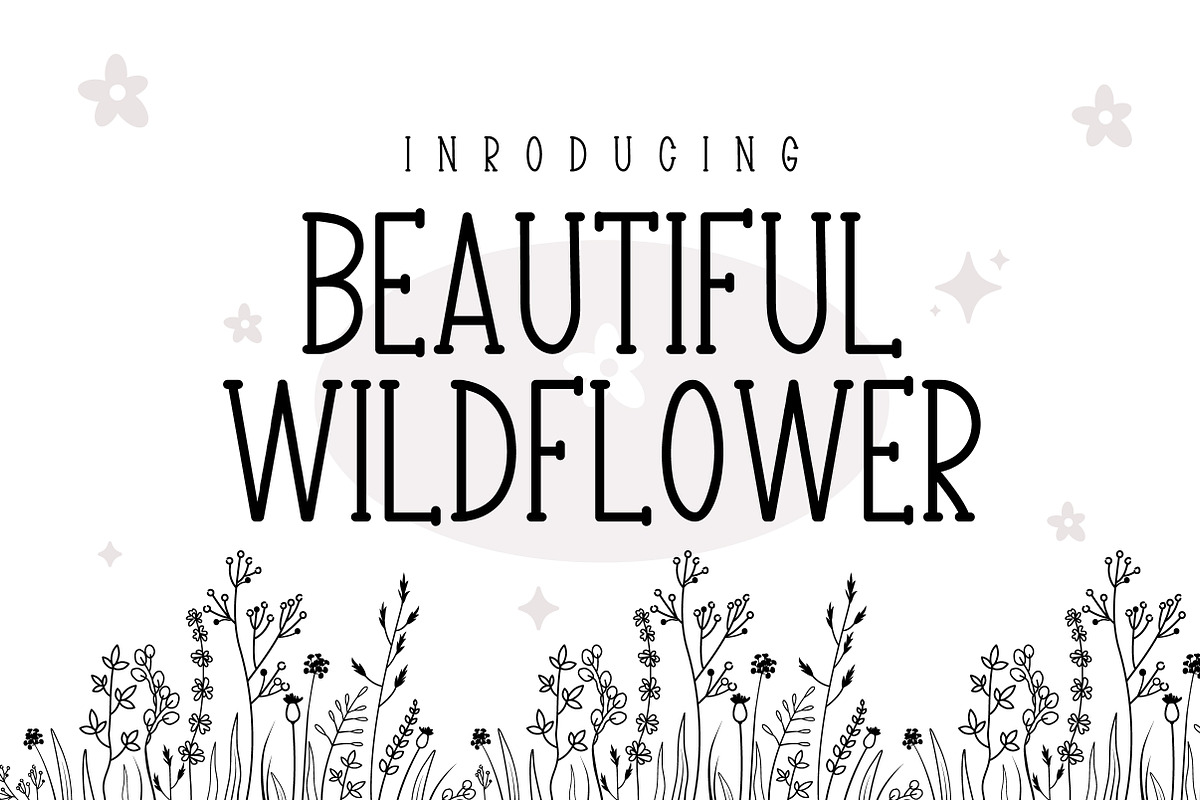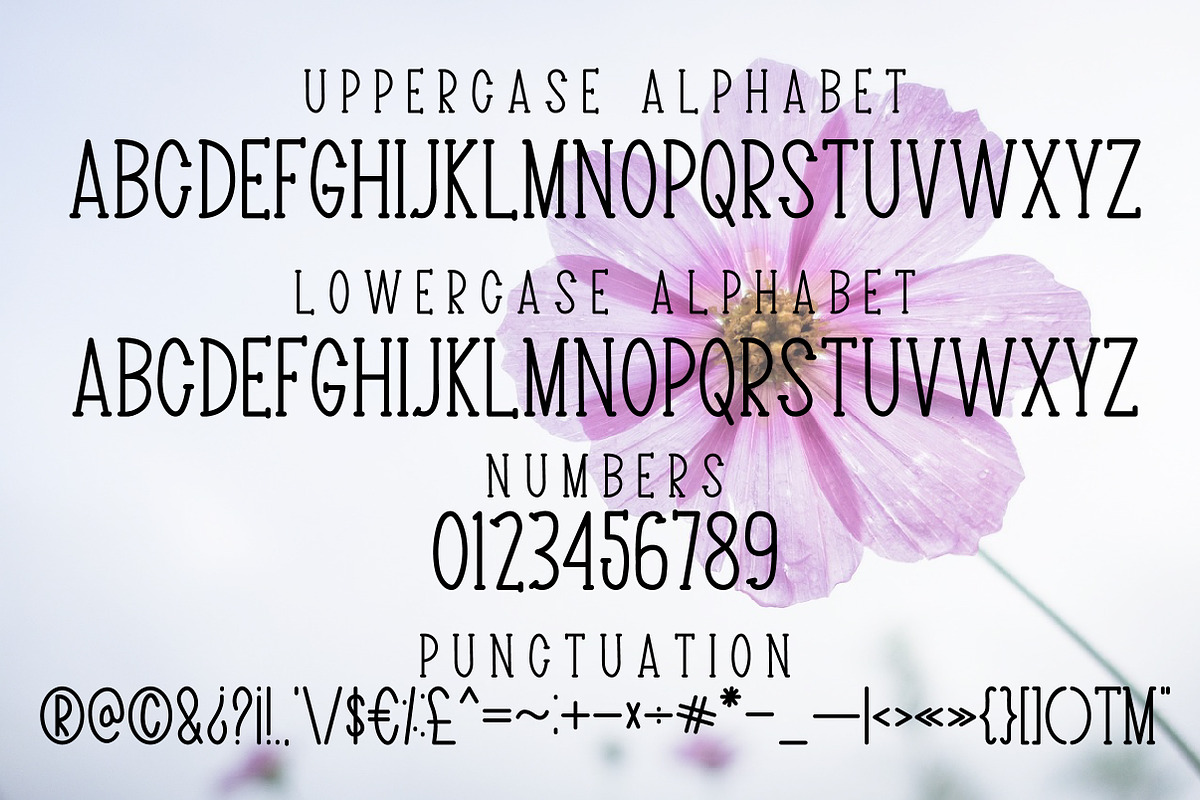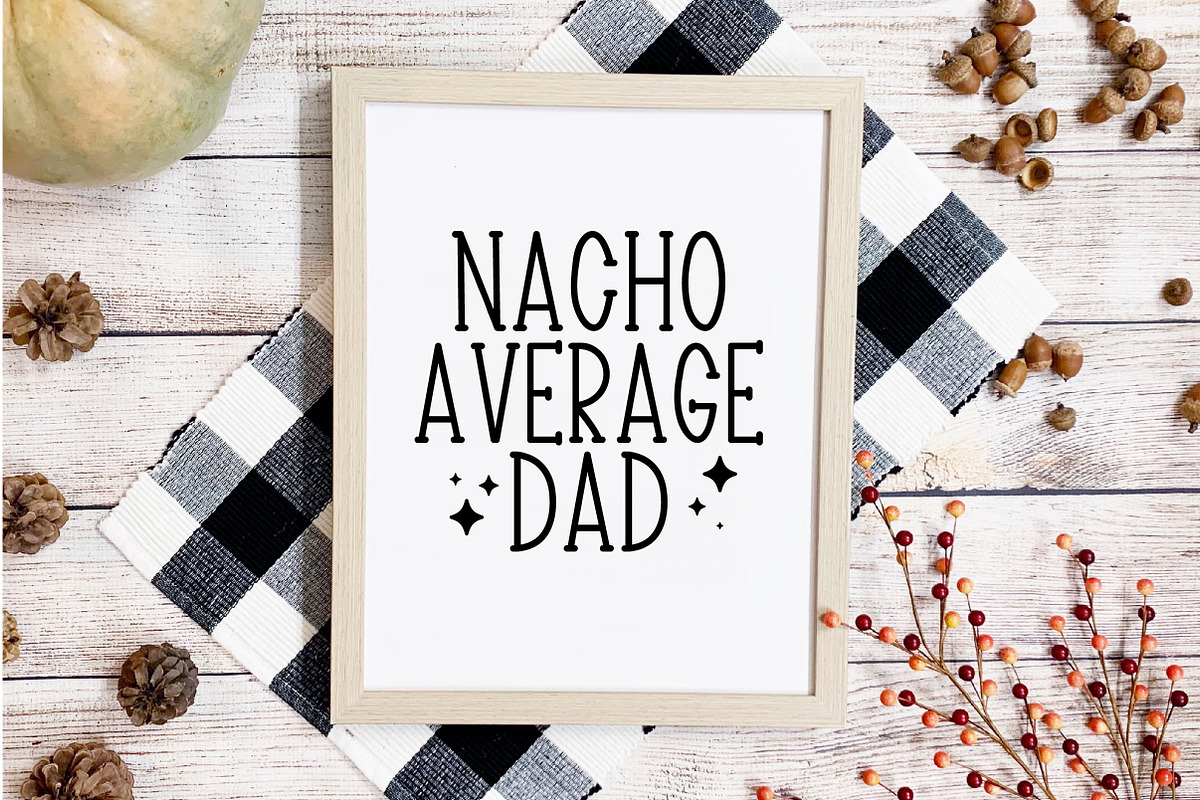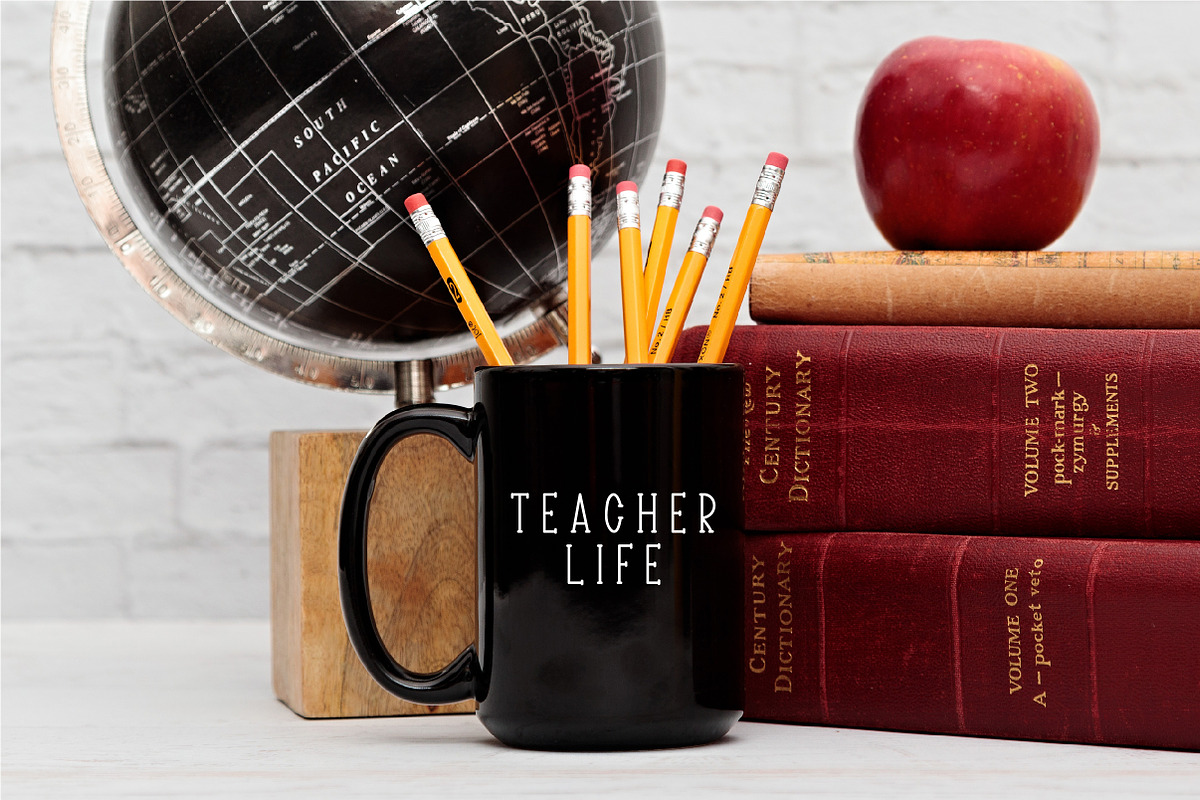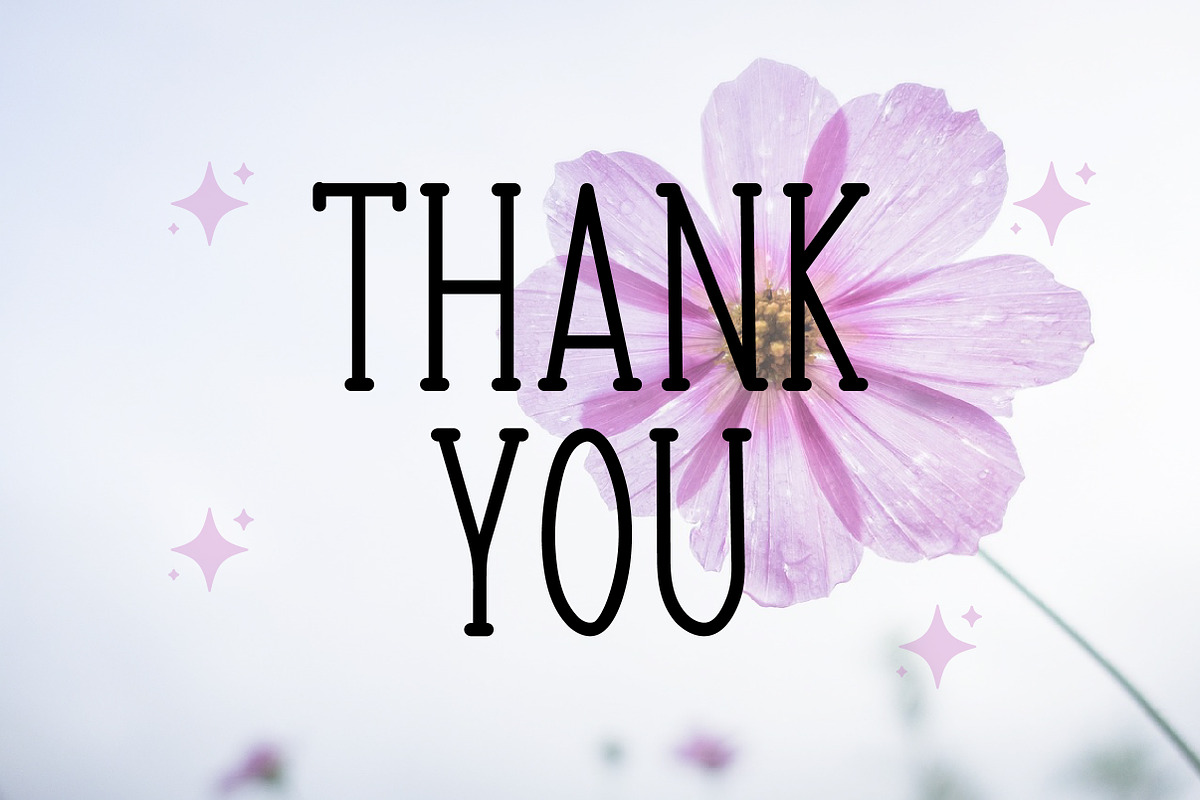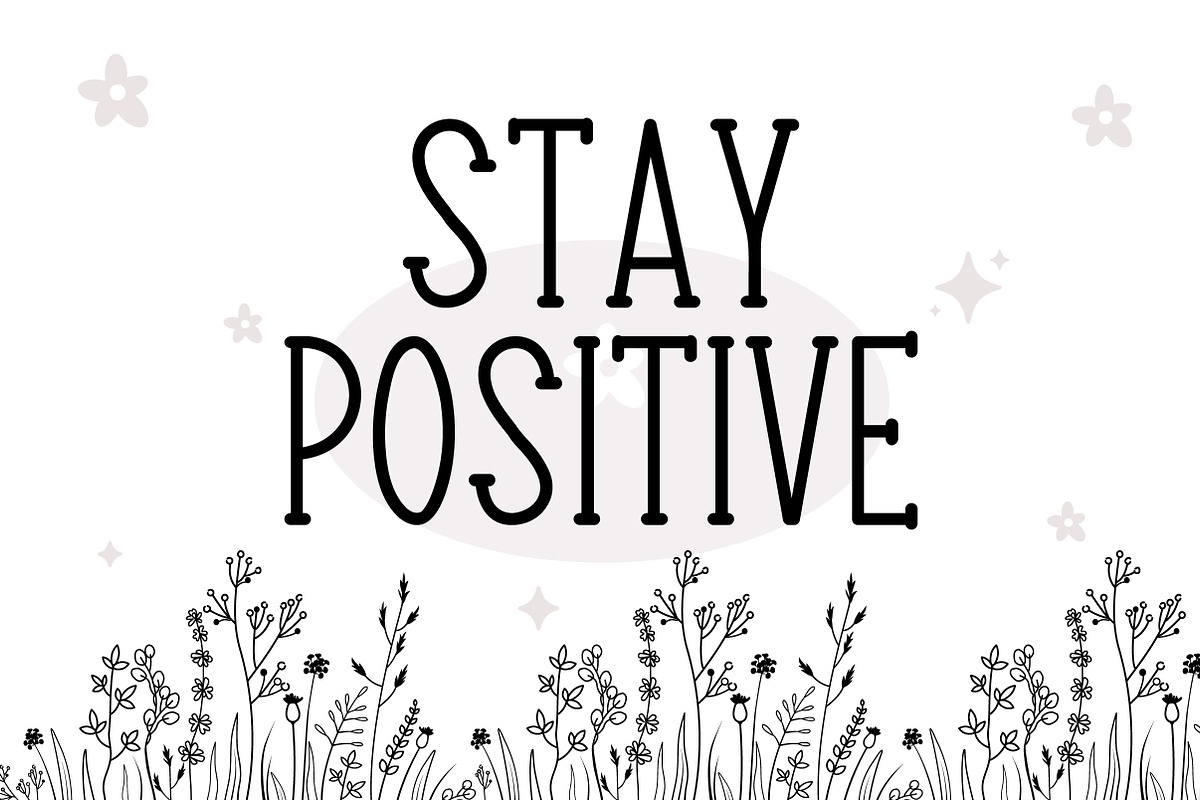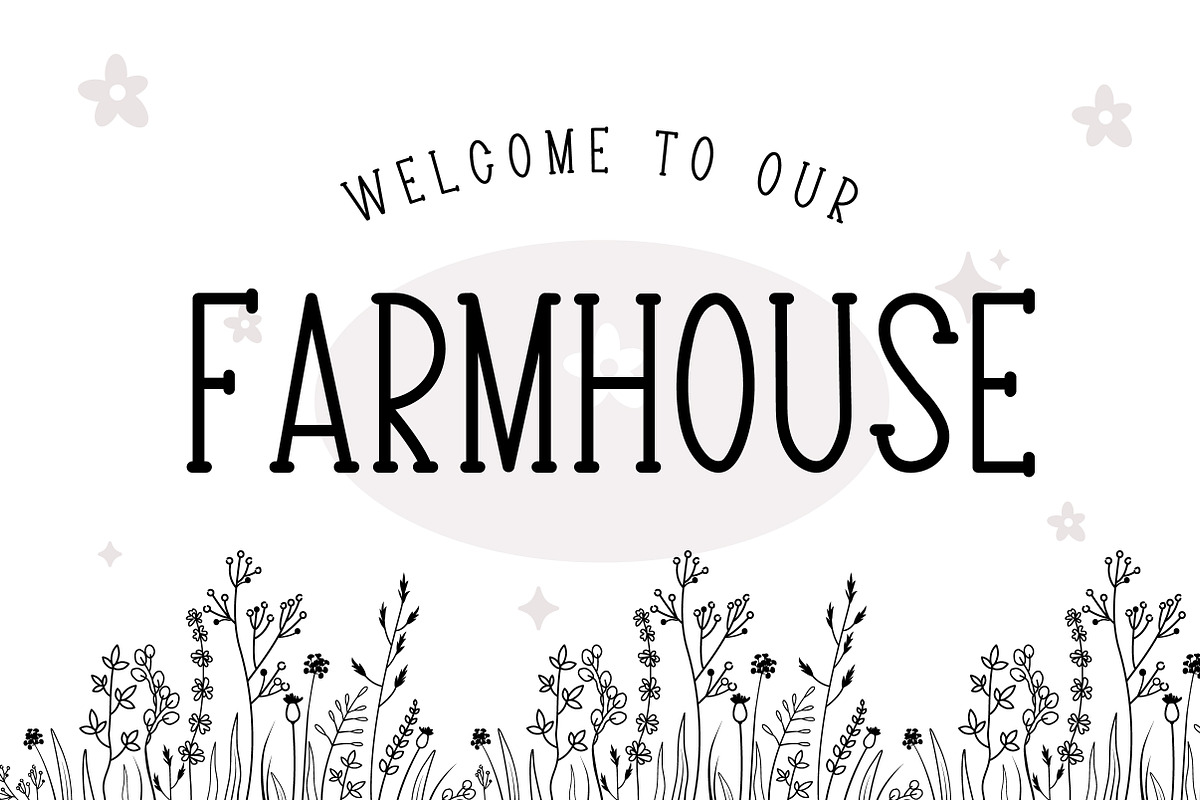
Beautiful Wildflower
Beautiful Wildflower a handwritten serif font. Combined with the Skip font, this serif font will turn your ideas into perfection. This font are ideal for adding a chic and cheerful touch to your craft. Perfect font for Invitations, Personalized Products, Brand Logos, Craft, birthday invitations, t-shirt, Farmhouse Decor and many more...